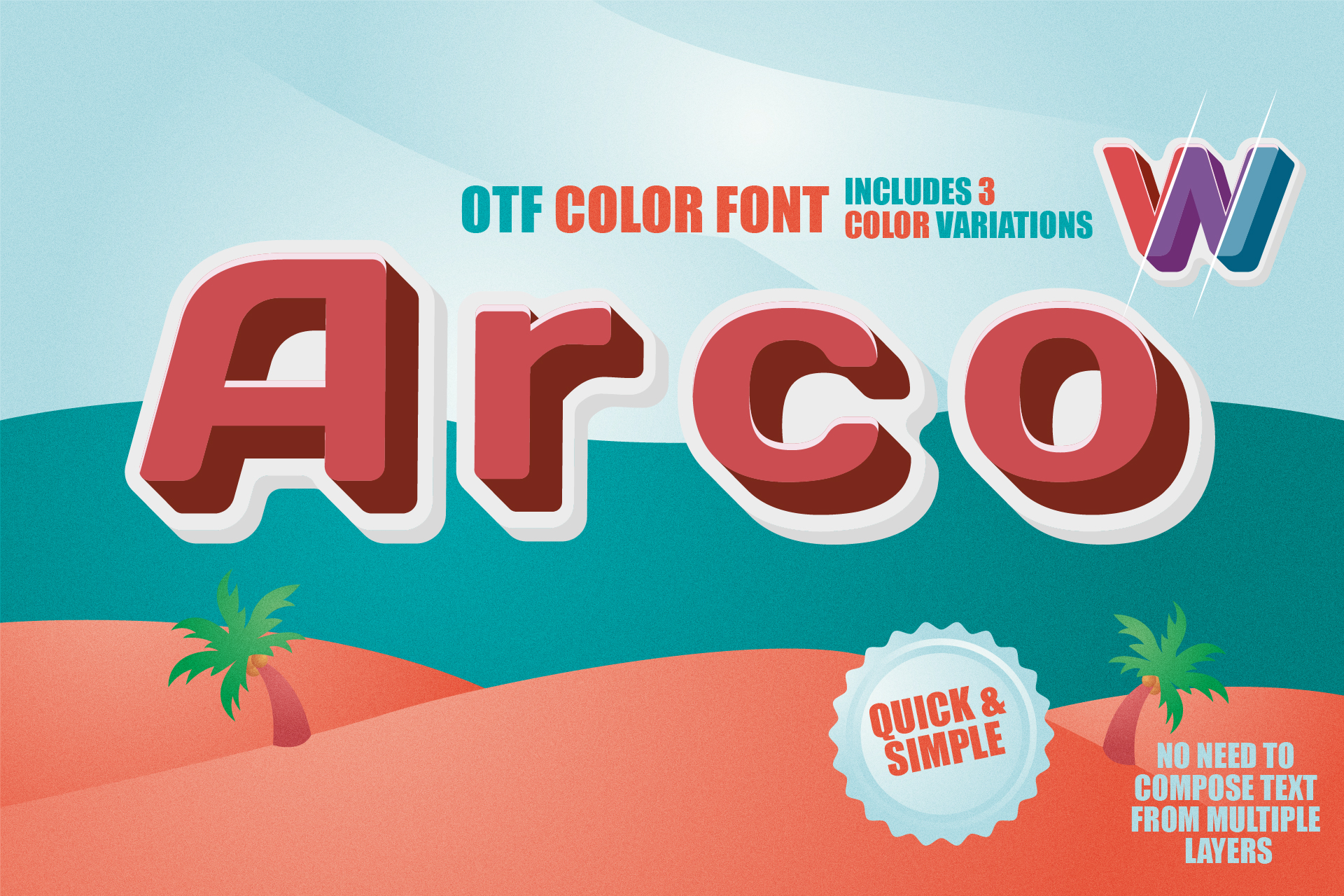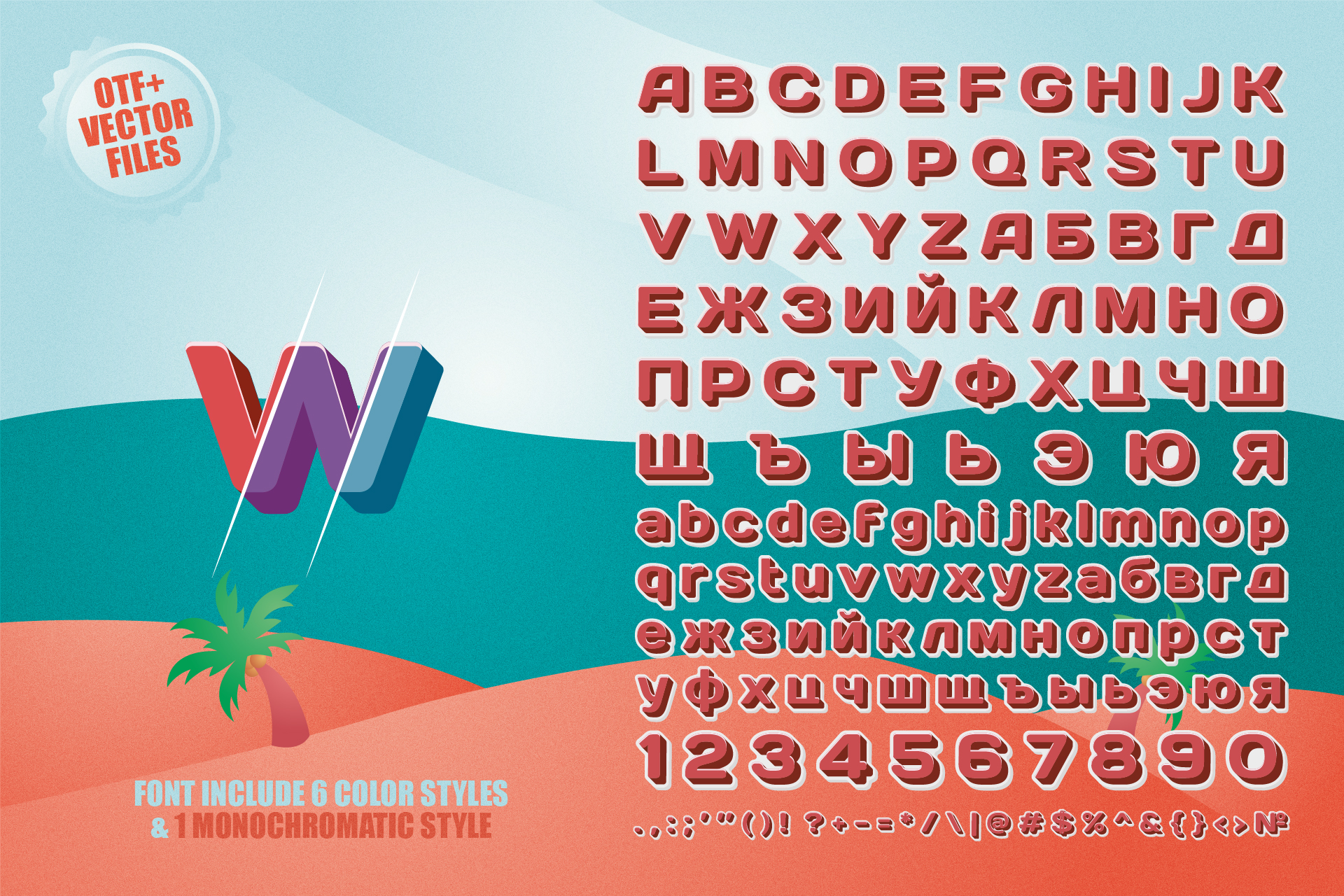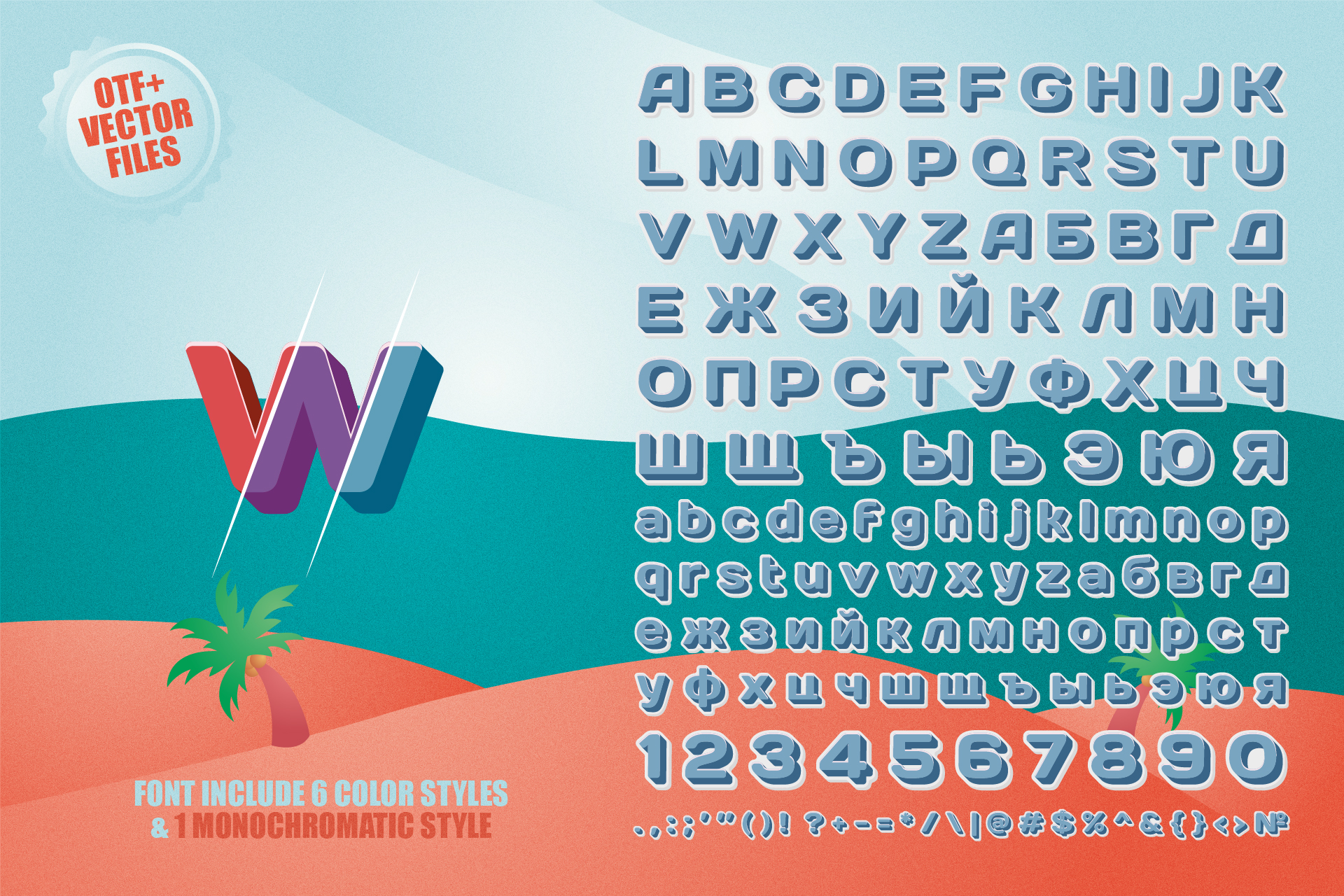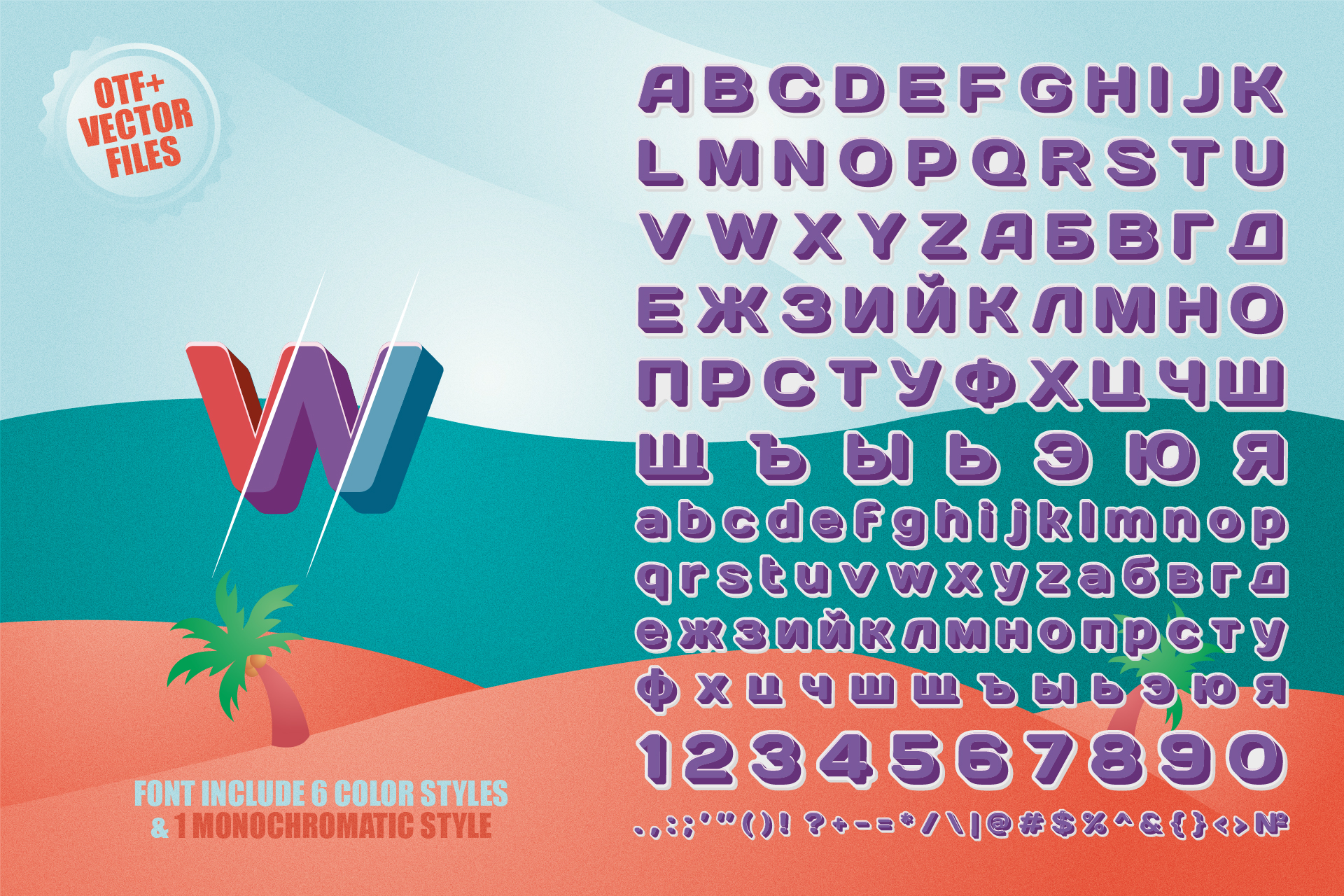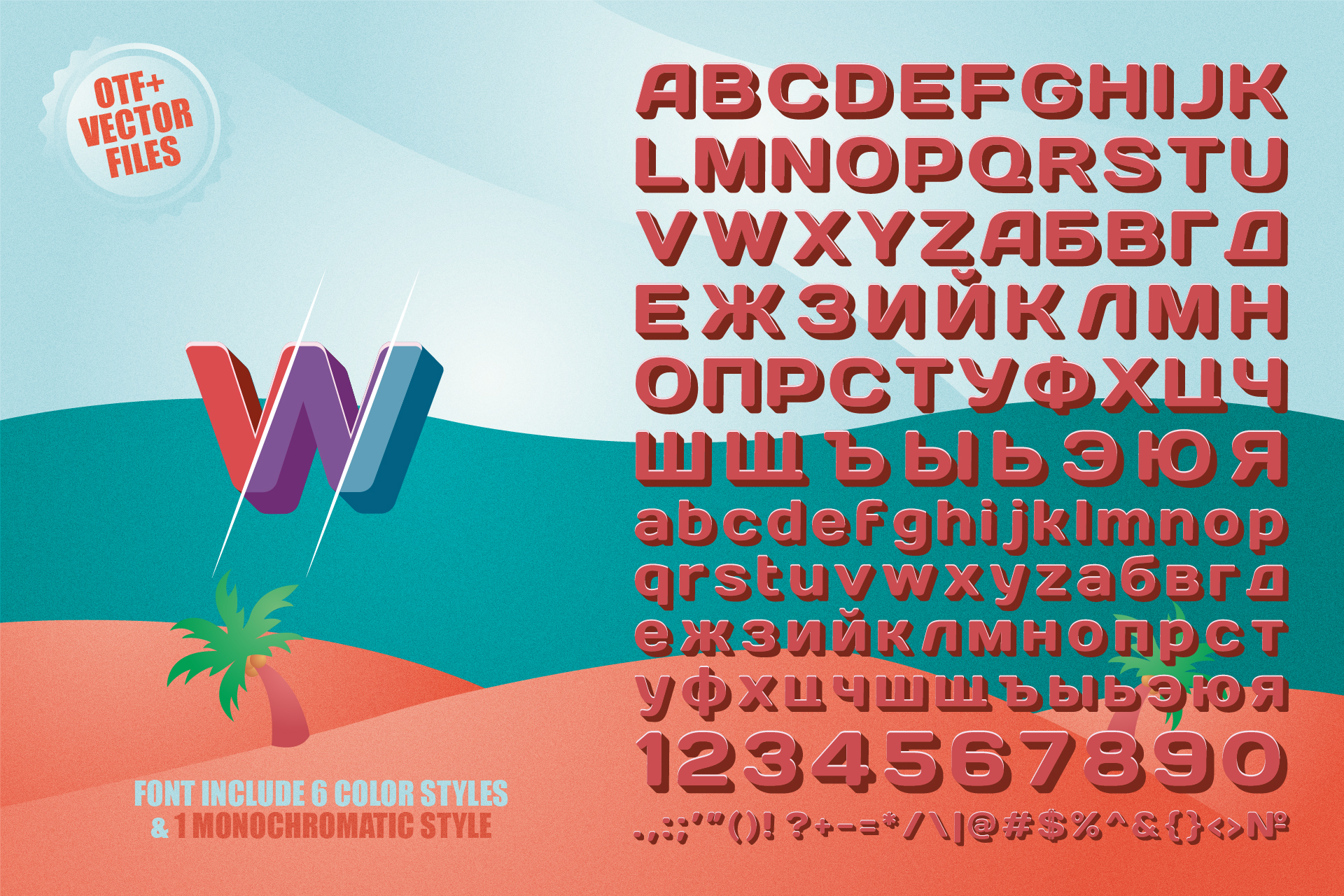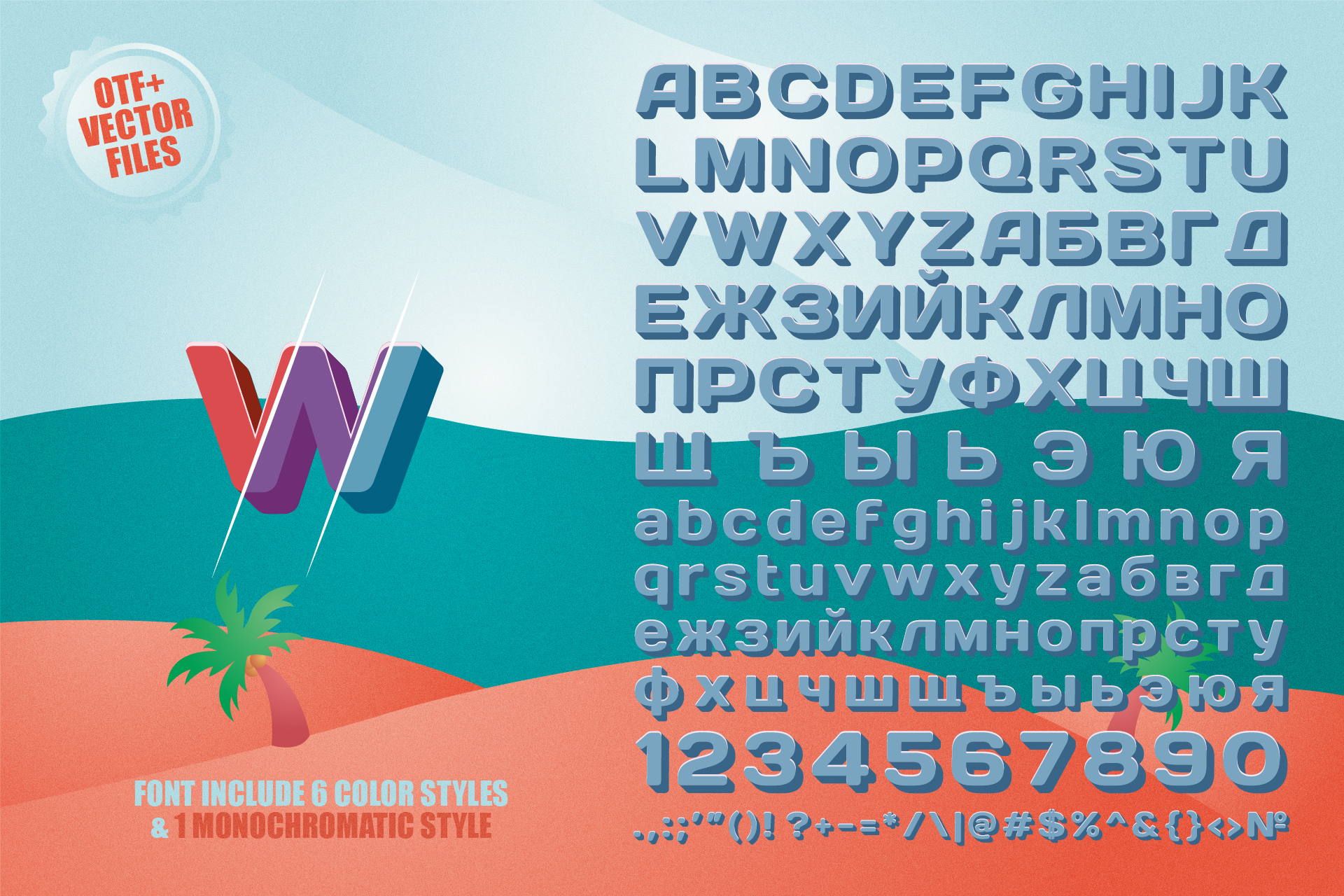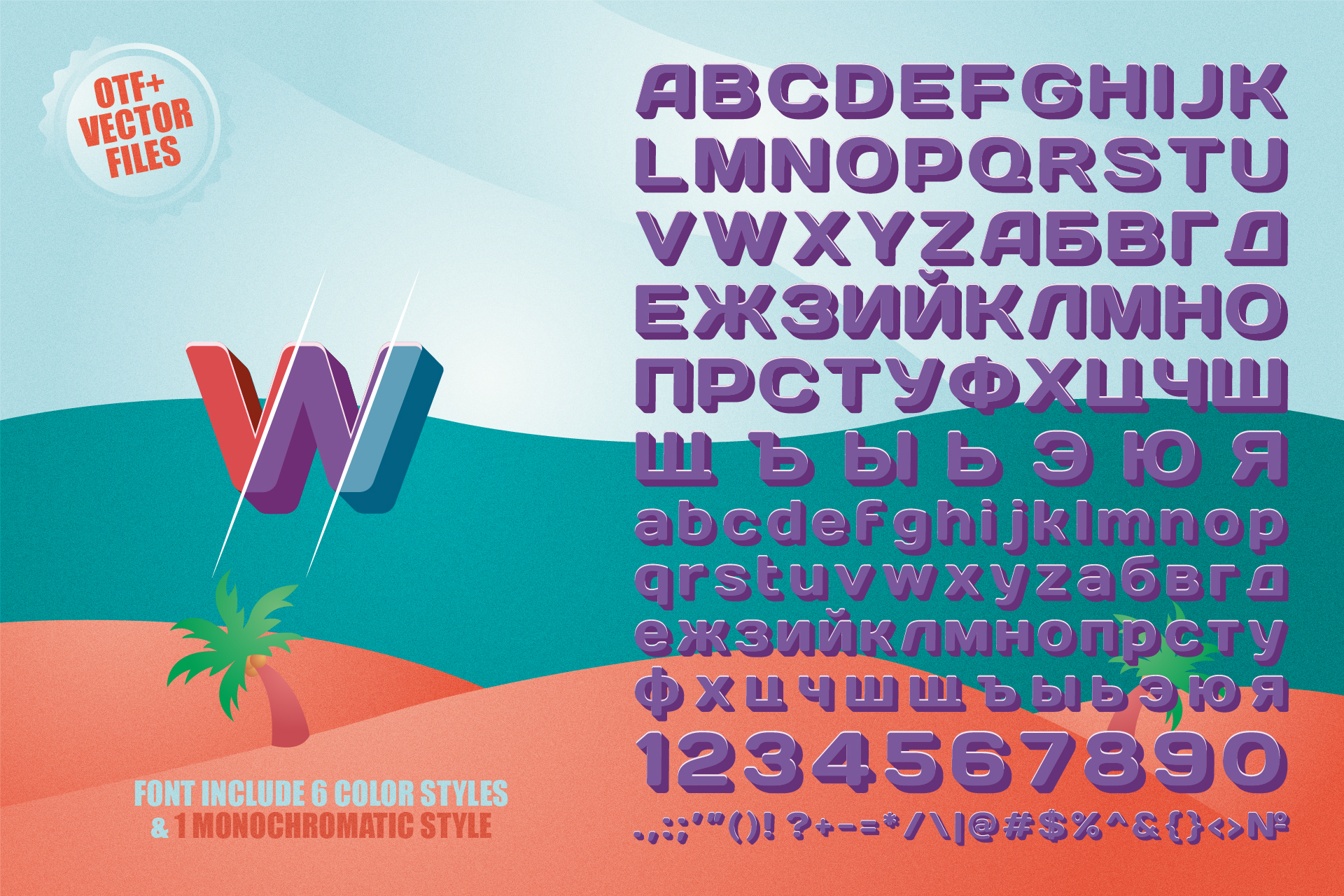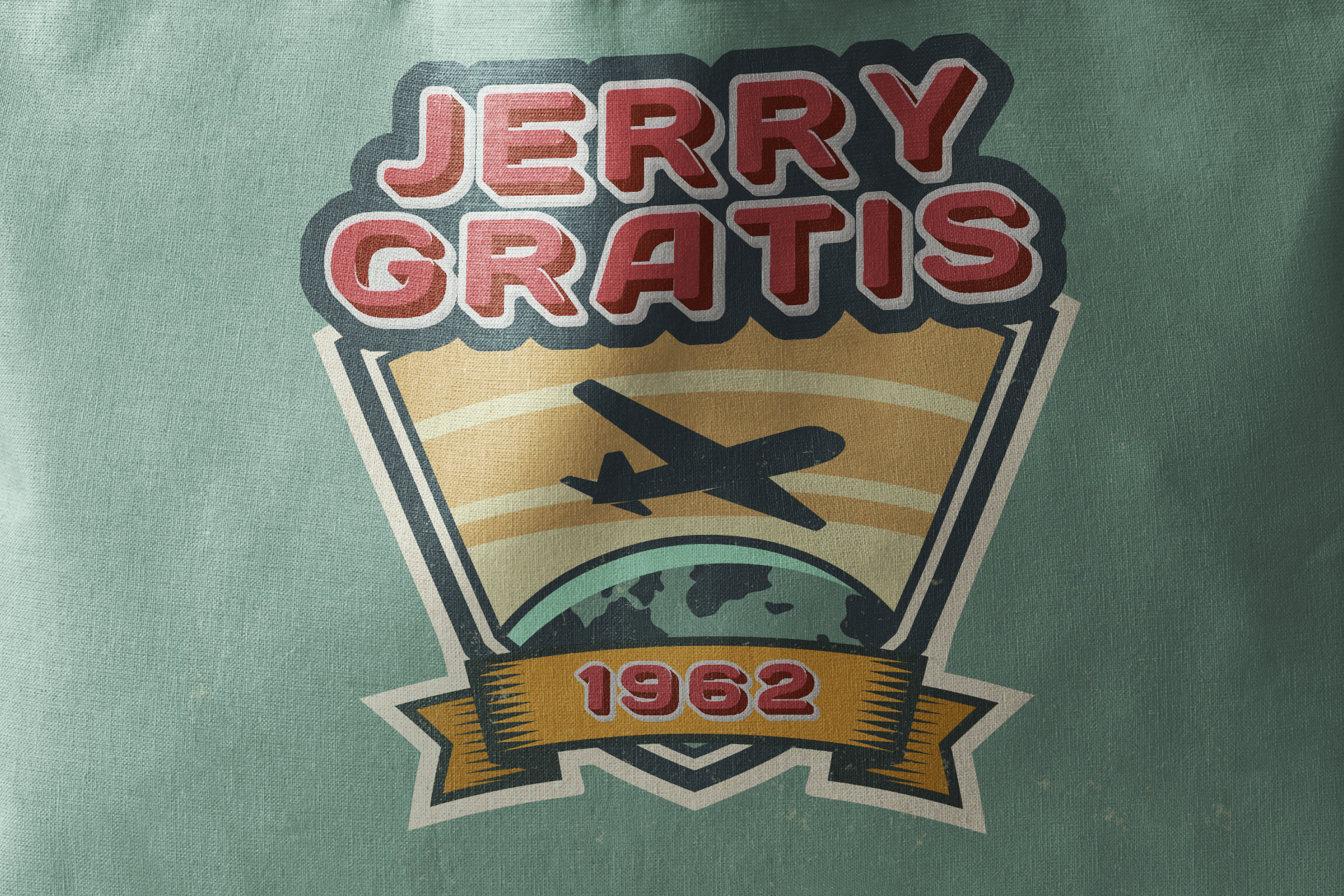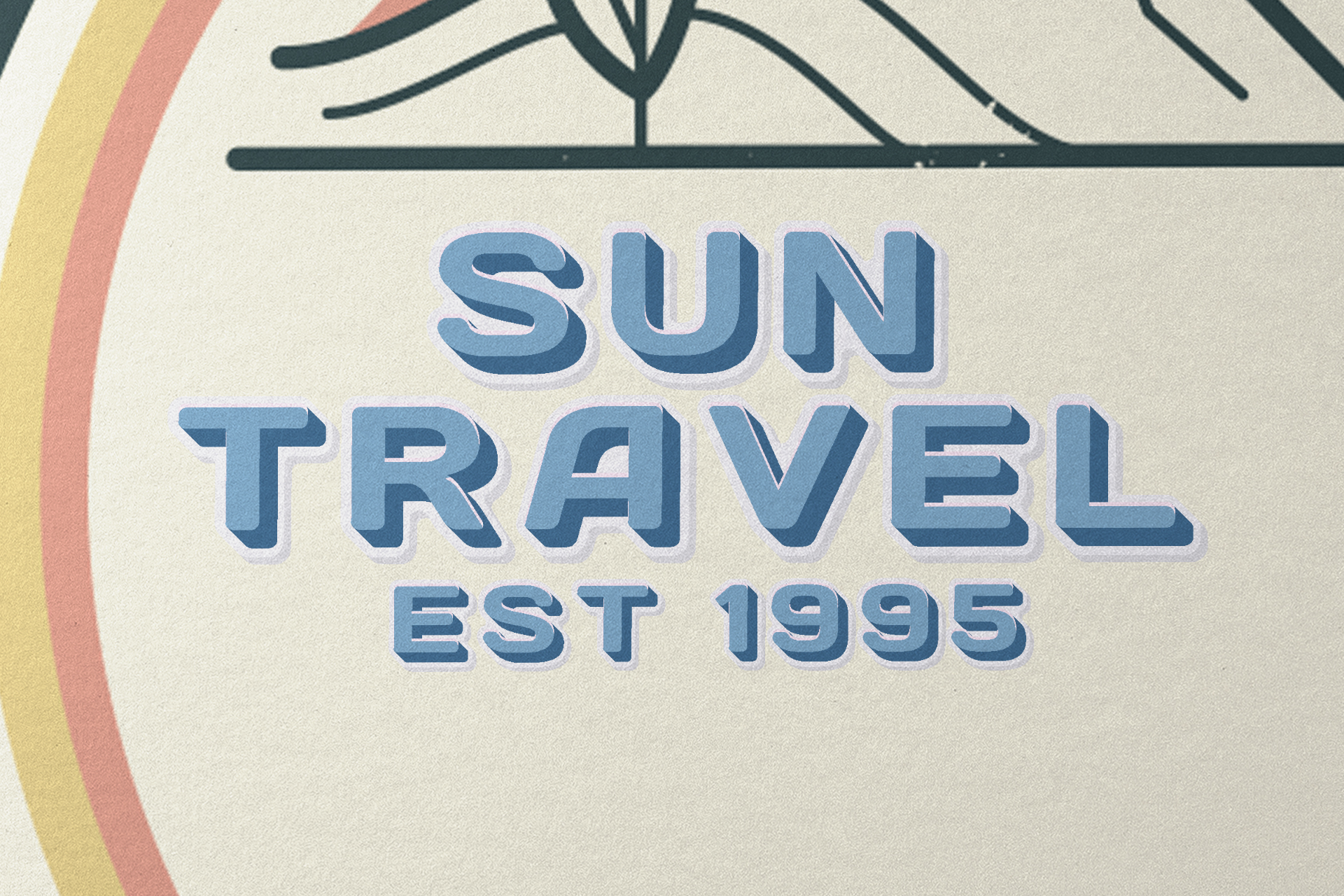
🌿 Introducing SVG color font - Arco. 👑
This a sweet bold script font made of all things lovely and sweet. It’s a sans serif font family. This font has a fun bohemian vibe. It suitable for logo, branding, t-shirt, poster, packaging, book cover, cards, and any lettering needs and more.
• All uppercase&lowercase display, numerals & punctuation